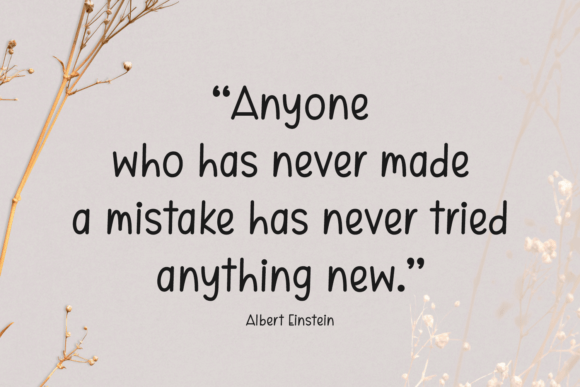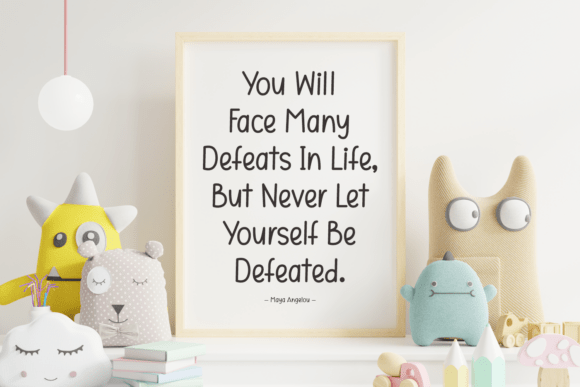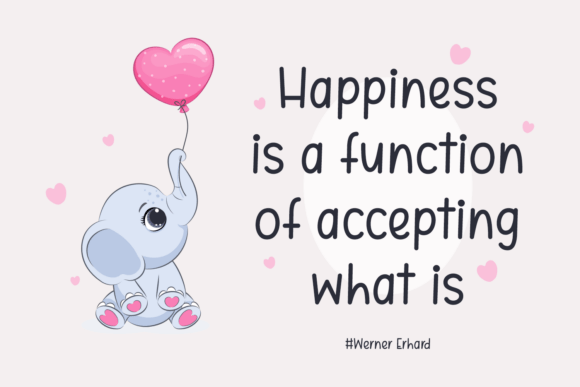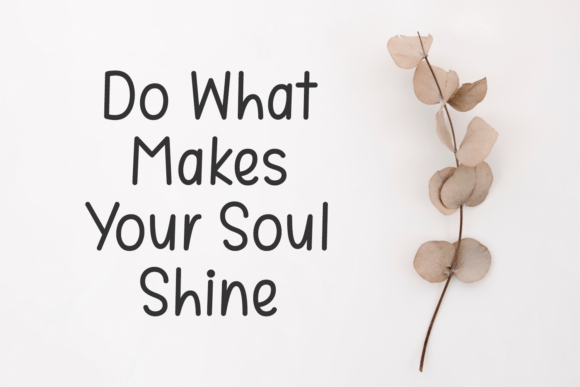
The Sweet Spot: Discovering Bouty Choite Font
I still remember the frustration of working on a design project, hours spent crafting the perfect layout, only to hit a roadblock: finding the right font. My client wanted something sweet, friendly, and unique – a font that would make their brand stand out. After scouring the internet, I stumbled upon Bouty Choite Font, and it was love at first sight! ✨ In this article, I’ll share my experience with this beautiful handwritten font, its features, and how to make the most of it in your designs.
An Honest Review of Bouty Choite Font
- ✨ Sweet and Friendly: Bouty Choite’s natural, handwritten style exudes warmth and approachability, making it perfect for brands that want to connect with their audience.
- ✅ Unique and Versatile: Its distinct character set and elegant flow make it suitable for a wide range of designs, from invitations and branding to packaging and more.
- 🌈 Easy on the Eyes: The font’s gentle curves and flowing lines create a soothing visual experience, perfect for reading and viewing.
While Bouty Choite Font is an excellent choice, there are a few things to keep in mind: 🤔
- ⚠️ Limited Formality: As a handwritten font, Bouty Choite may not be the best fit for formal or corporate designs that require a more professional tone.
- ⚠️ Glyph Limitations: While the font has a range of glyphs and OpenType features, it may not have every special character or symbol you need.
A Practical Guide to Using Bouty Choite Font
- Experiment with OpenType features, such as stylistic alternates, to add visual interest.
Bouty Choite Font was created with the intention of capturing the warmth and friendliness of handwritten communication. Its designer aimed to craft a font that would evoke feelings of approachability and sincerity, perfect for brands that want to connect with their audience on a personal level.
Q: What type of designs is Bouty Choite best suited for?
A: Bouty Choite is versatile and can be used for a wide range of designs, including branding, invitations, packaging, and more.
Q: Does Bouty Choite have OpenType features?
A: Yes, Bouty Choite includes OpenType features, such as stylistic alternates, glyphs, and ligatures, which can enhance your designs.